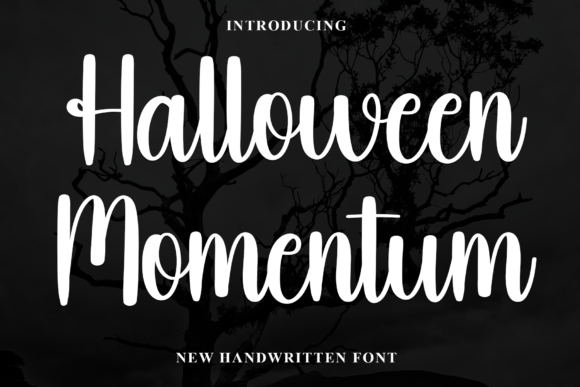
Embark on a typographic journey with Halloween Momentum, a mesmerizing script font that captures the spirit of timeless calligraphy with contemporary flair. Step into a world of elegance where each letter dances with grace, showcasing impeccable form and captivating curves. Let your designs radiate with a touch of sophistication, whether crafting wedding invitations, enchanting posters, or elegant branding projects.
Halloween Momentum's balanced strokes and varied letterforms bring a dynamic rhythm to your creations, ensuring they stand out amidst the digital noise. Its carefully crafted details and flowing lines create a visual symphony that will leave your audience spellbound. Whether you seek to weave tales of love, announce joyous occasions, or simply add a touch of enchantment to your everyday designs, Halloween Momentum is your perfect companion.
With Halloween Momentum, you hold the power to evoke emotions, inspire imaginations, and captivate hearts. Its versatility extends beyond the realm of wedding banners, effortlessly adapting to a myriad of design endeavors. Unleash your creativity and let this font guide you through a realm of endless possibilities. Dive into a world of typography where elegance and charm collide, creating a lasting impression that will leave your audience breathless.
Transform your designs into masterpieces, where every word carries a weight of significance and every letter tells a story. Halloween Momentum, a font crafted with passion and precision, awaits your touch to ignite its full potential. Embrace the magic of typography and embark on a creative journey that will leave an indelible mark on your audience. Let your designs bloom with beauty, expressing your unique vision and leaving a legacy that will be admired for years to come.